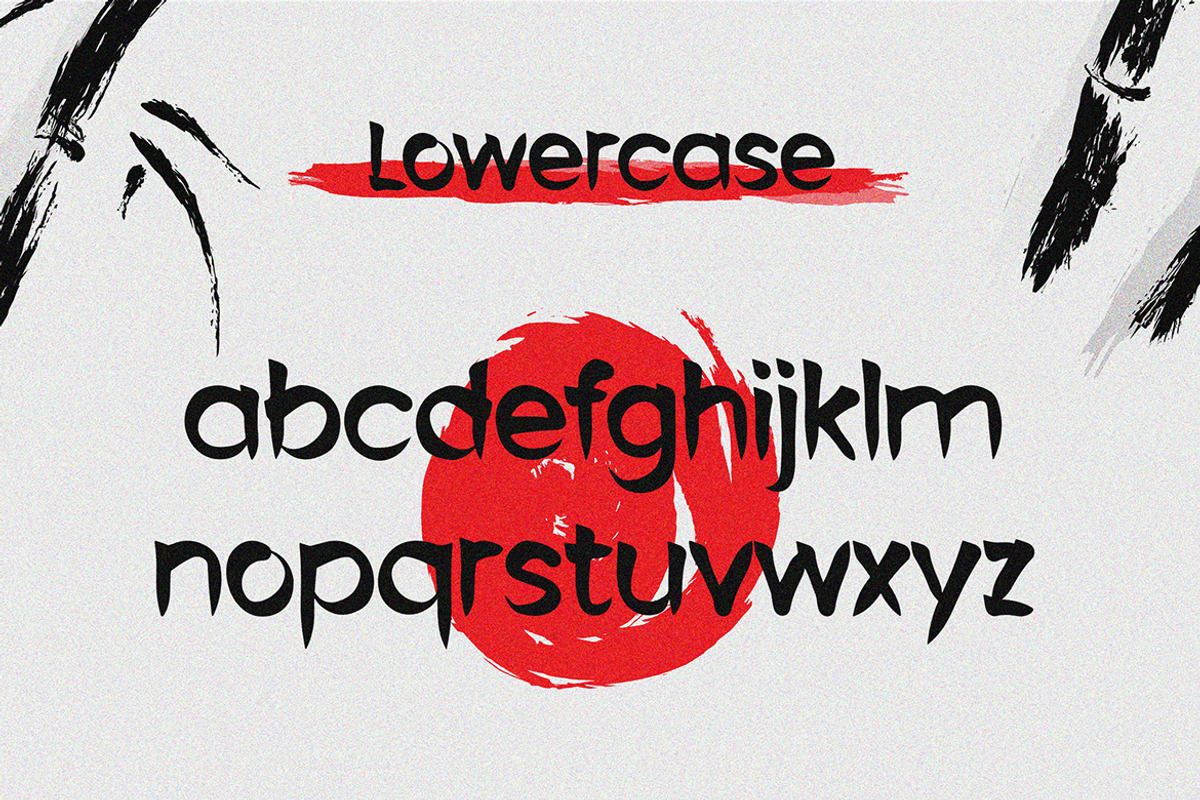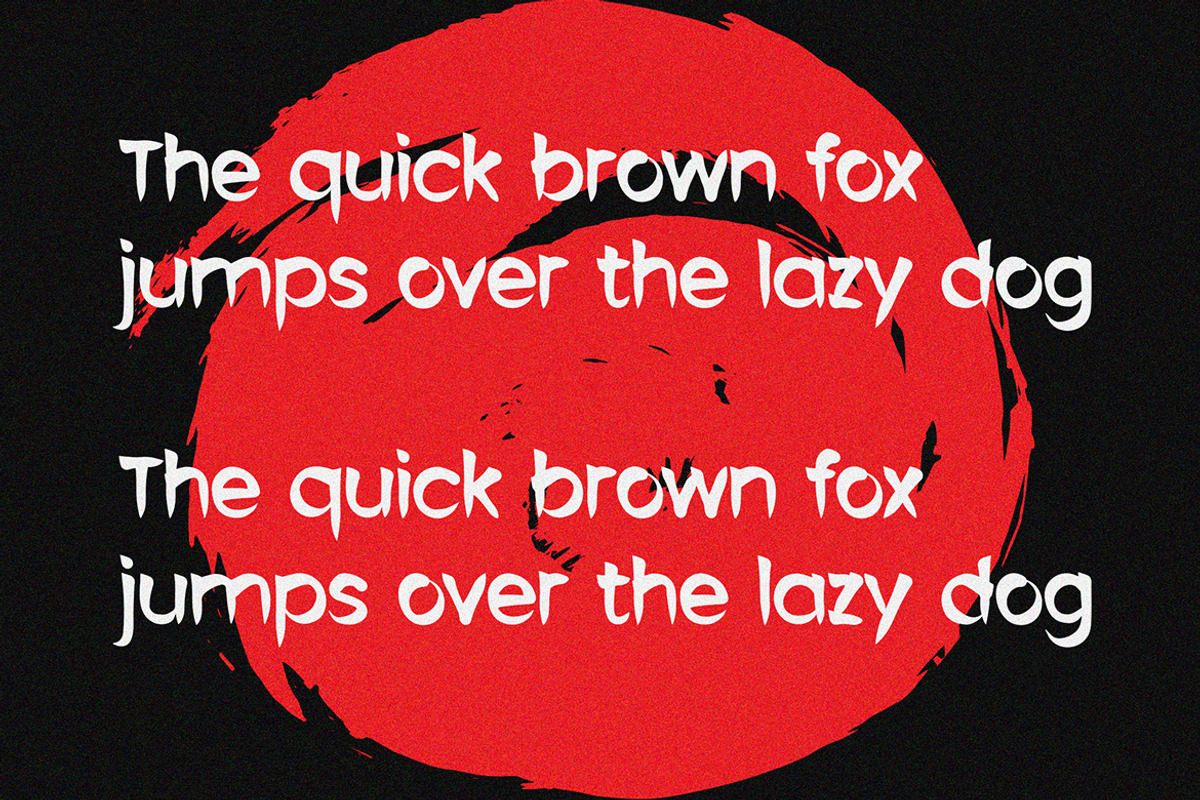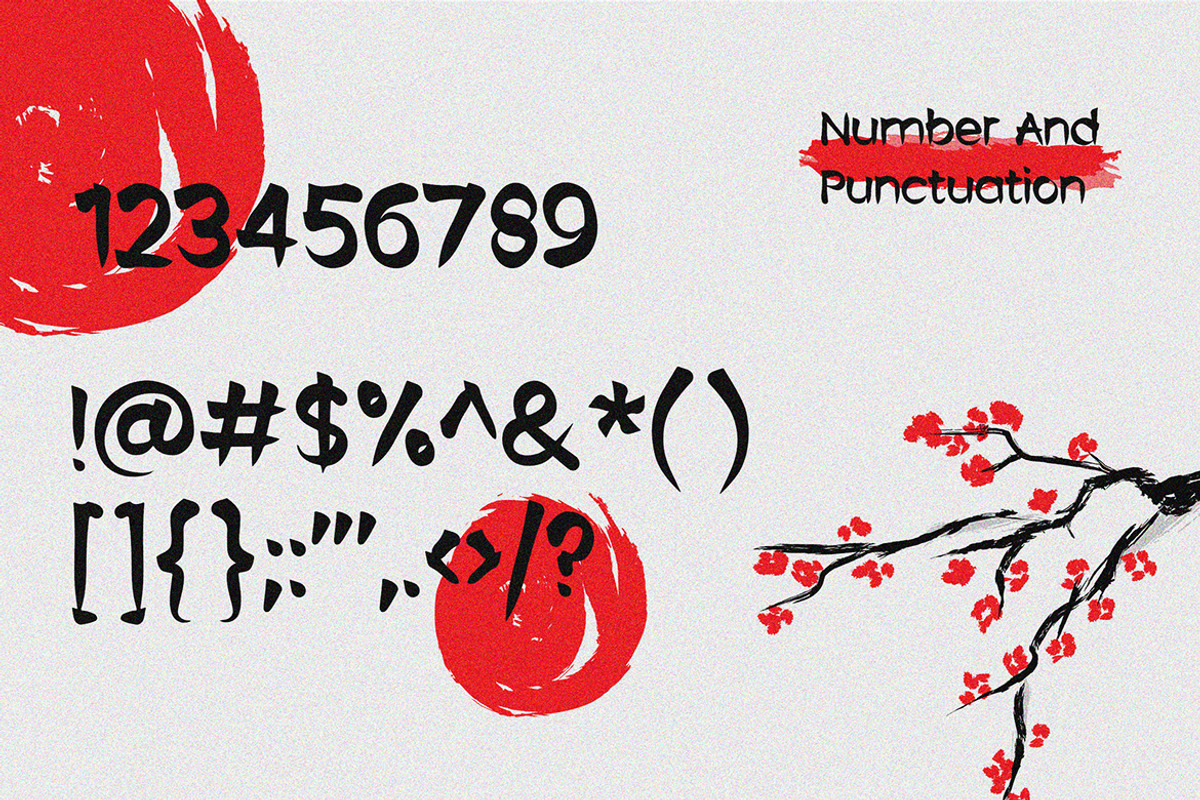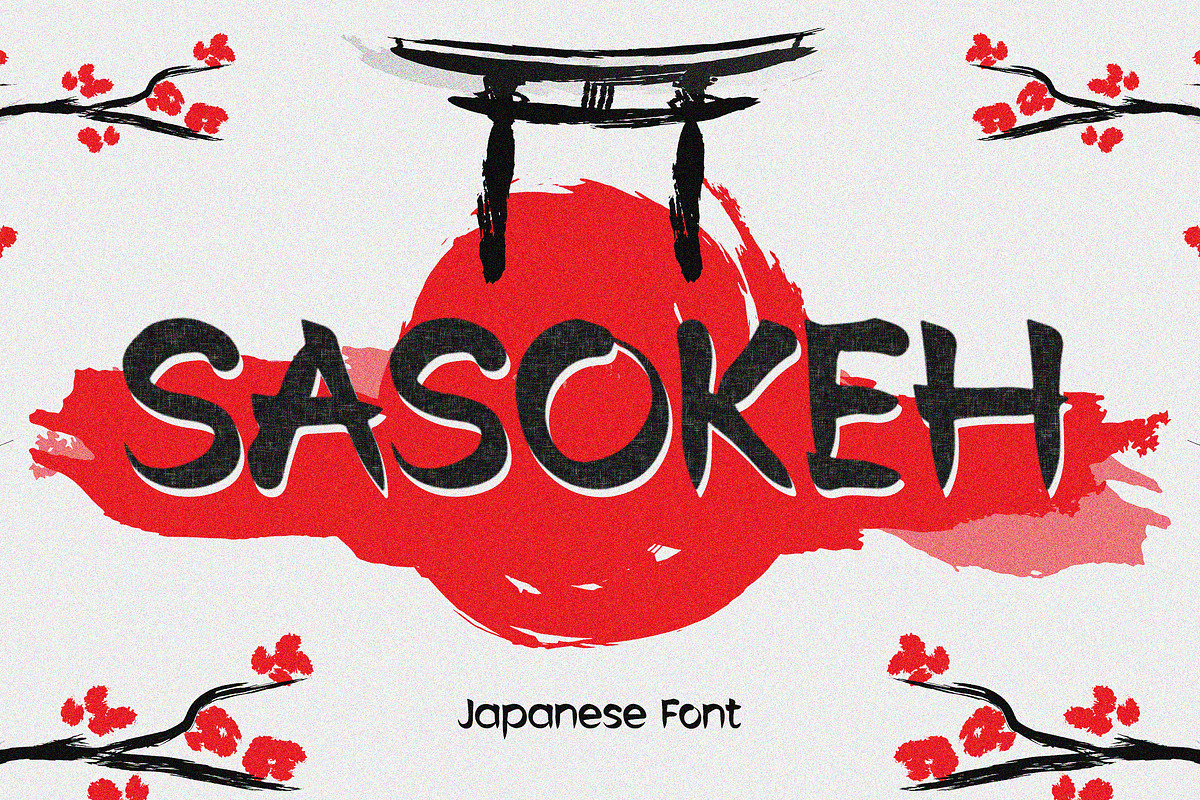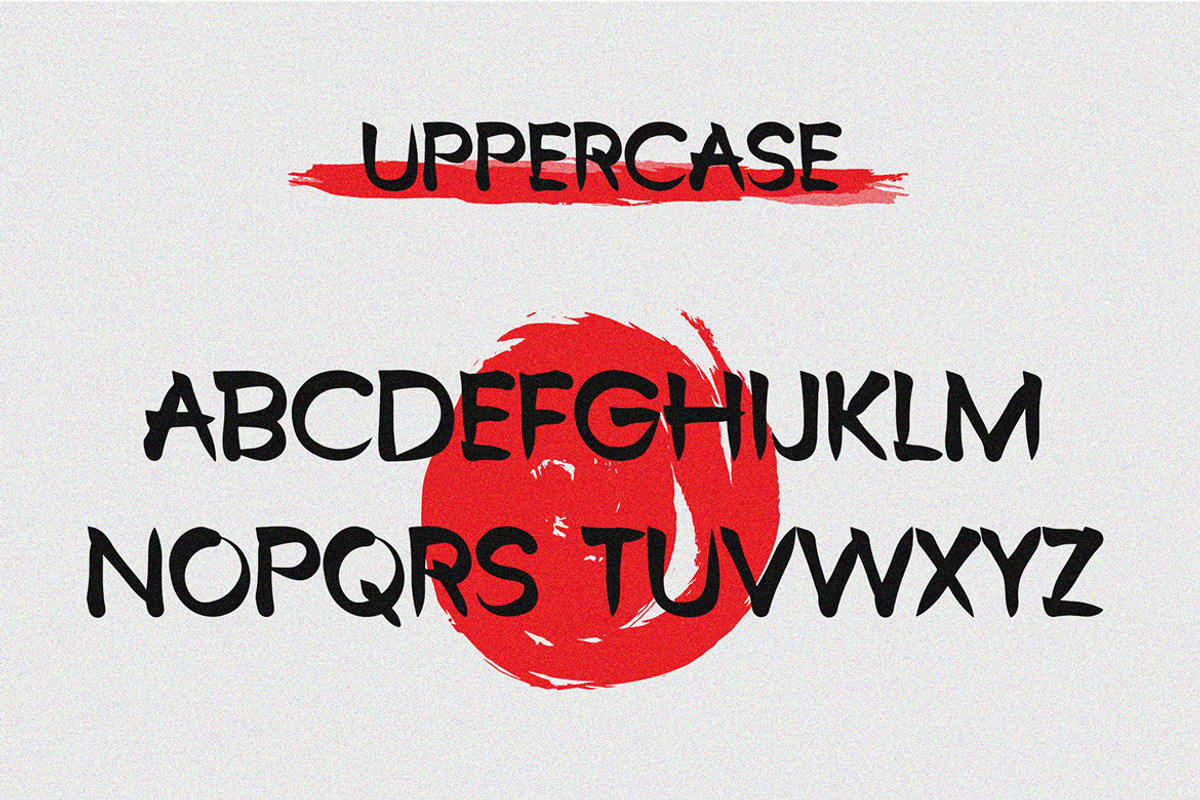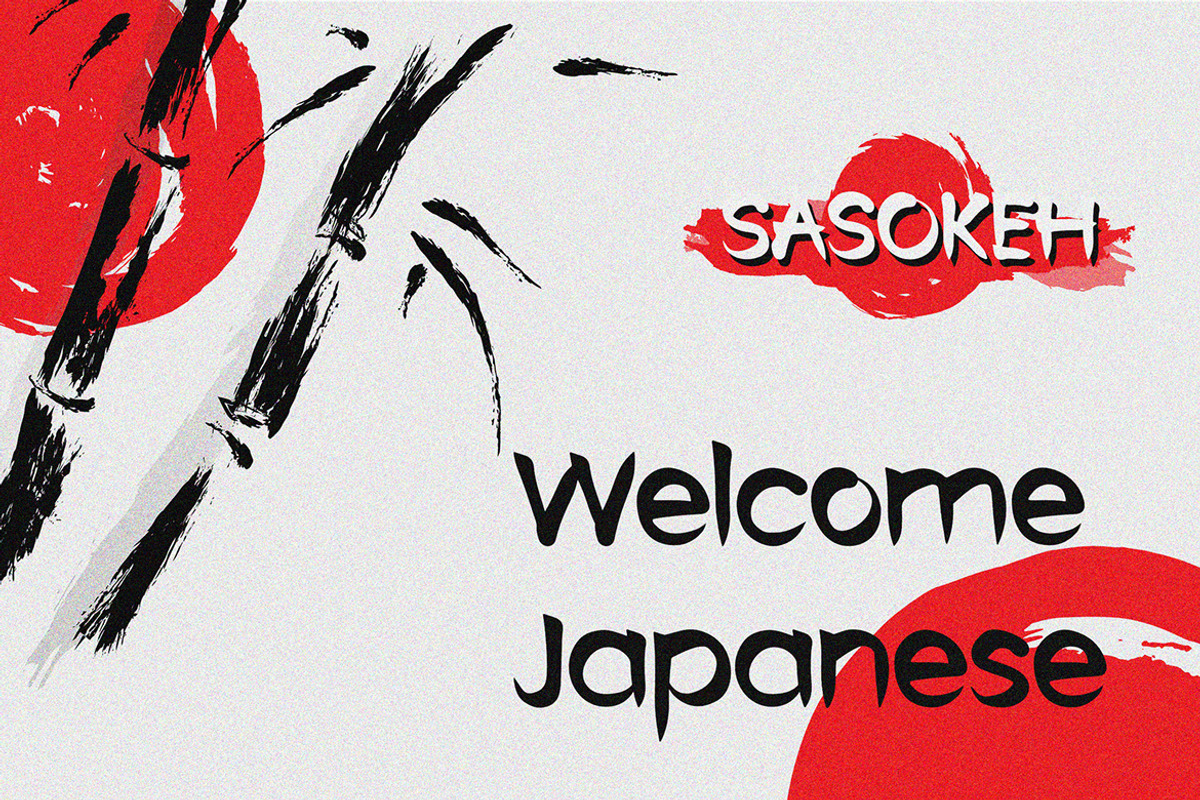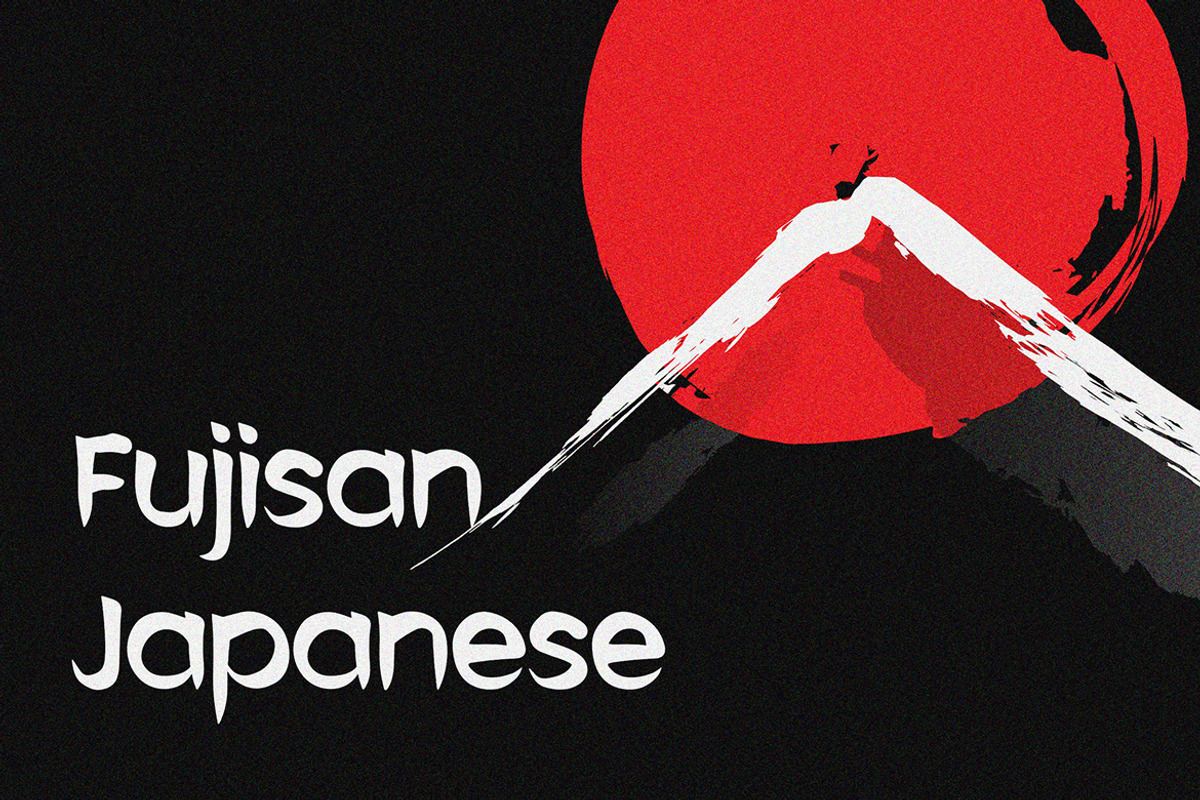
Sasokeh - Japanese Style Font
Sasokeh is a unique display typeface perfect for titles, large text, branding, logotypes & graphic design purposes such as posters, pamphlets, and advertisements. This letter font can be a great choice for creating amazing logos, promotional content, and marketing presentations that can bring uniqueness and freshness at its best.